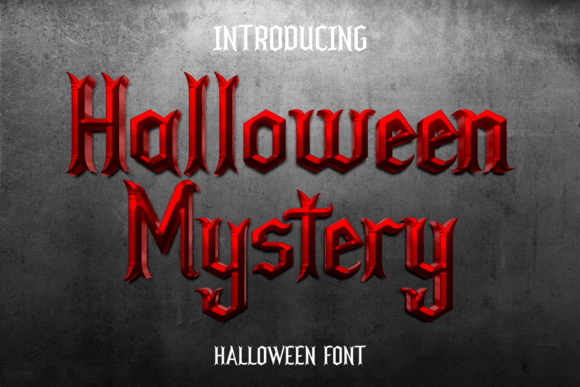
Halloween Mystery Font
Enter the realm of Halloween Mystery, a spellbinding display font family that will cast a magical charm over your designs. Inspired by the eerie enchantment of All Hallows' Eve, this font conjures an atmosphere of spine-tingling delight, making it the perfect choice for your next Halloween-themed project.
With its hauntingly beautiful curves and mischievous glyphs, Halloween Mystery is a visual treat that will leave a lasting impression. Each letter dances with a mischievous spirit, adding a touch of spooky playfulness to your creations. Unleash your creativity and transport your audience to a realm of untold mysteries and chilling thrills.
Halloween Mystery is not just a font; it's a gateway to a world of imagination and wonder. Picture the excitement of your Halloween invitations adorned with this captivating font, sending shivers down the spines of your guests. Envision the spine-chilling effect of your Halloween posters and flyers, leaving passersby spellbound.
Whether you're creating social media graphics, website banners, or merchandise, Halloween Mystery will add an unforgettable touch of spooky sophistication to your designs. Its versatility knows no bounds; it effortlessly complements everything from invitations and flyers to posters and social media posts.
But Halloween Mystery is not just limited to the realm of the supernatural. Its versatility extends to a wide range of creative endeavors. Use it to add a touch of whimsy to your children's book illustrations, or let it unleash the dark charm in your fantasy novel covers.
With Halloween Mystery, the possibilities are endless. Dive into the enchanting world of Halloween and let your creativity run wild. Embrace the spooky spirit and craft designs that will leave your audience spellbound. Halloween Mystery awaits you; embark on this typographic journey and make your Halloween truly unforgettable.